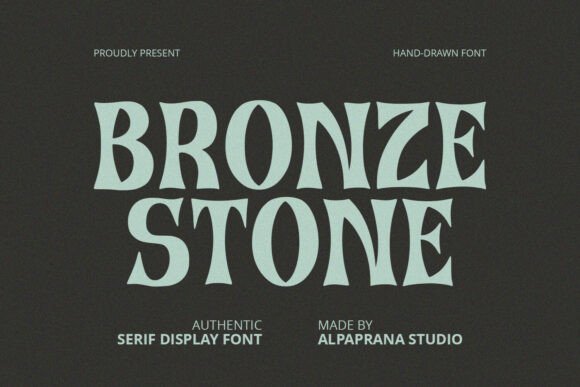
Unleash Your Creativity with Bronze Stone Font
Have you ever stared at a blank canvas, trying to conjure up the perfect font to bring your design to life? It’s a feeling we’ve all been there, right? The blank page staring back at us, daring us to take the leap and create something truly unique. For designers, finding the right font can be the difference between a mediocre design and a masterpiece.
Enter Bronze Stone Font, a cool and versatile display font that’s sure to take your creative projects to the next level. With its sleek, modern aesthetic, Bronze Stone Font is perfect for adding a touch of sophistication to your designs. Whether you’re working on a logo, brochure, or website, this font is sure to impress.
As a designer, you know how valuable it is to have a reliable font at your disposal. Bronze Stone Font is more than just a pretty face – it’s a powerful tool that can help you communicate your message with style and flair. So why settle for a boring, run-of-the-mill font when you can unleash your creativity with Bronze Stone Font?
Bronze Stone Font Key Features
- Font Family: Bronze Stone Font is a serif font family designed for use in print and digital media.
- Font Size: Bronze Stone Font comes in a range of sizes, from 12-point to 72-point, making it suitable for various applications, including body text, headings, and titles.
- Resolution: Designed for high-resolution output, Bronze Stone Font is ideal for use in print materials, such as books, magazines, and newspapers, as well as digital displays with high pixel densities.
- Unique Characteristics: Bronze Stone Font features a distinctive, antique-inspired design with a warm, earthy tone, evoking the look and feel of weathered bronze.
Designer Review: Bronze Stone Font
I’ve had the chance to work with the Bronze Stone Font, and I must say it’s a unique and stylish addition to any design project. ✨ Here are some of its strengths:
- Highly customizable: The font offers a wide range of styles and weights, making it perfect for creating visually appealing headers and titles.
- Great for luxury and vintage designs: The bronze-like color palette and ornate details evoke a sense of sophistication and elegance.
- Works well in print and digital media: The font is well-suited for both physical and digital applications, including business cards, logos, and websites.
However, like any font, Bronze Stone has its limitations: ⚠️
- Limited legibility: In smaller font sizes, the intricate details of the font can make it difficult to read.
- Not ideal for body text: While the font is perfect for headers and titles, it’s not the best choice for large blocks of text due to its ornate nature.
- May require additional formatting: Depending on the design project, you may need to add additional formatting or styling to ensure the font reads well.
Overall, Bronze Stone Font is a great choice for designers looking to add a touch of luxury and sophistication to their projects. With some careful planning and formatting, this font can be a real showstopper.
Use the Bronze Stone Font to add a touch of elegance and sophistication to your designs. Pair it with a neutral background to make it stand out. Experiment with different font sizes and styles to create visual interest.
The Bronze Stone Font is perfect for:
- Business cards and brochures
- Product packaging and labeling
- Editorials and blog posts
Fontin is a serif font that resembles a classic stone inscription. It’s ideal for use in historical or vintage-themed designs, such as book covers, posters, or signage.
Fontin is similar to Bronze Stone Font in its serif style, but it has a more elegant and refined feel. It’s also more versatile, with a wider range of weights and styles available.
What font sizes and styles are included in the Bronze Stone Font?
The Bronze Stone Font includes a range of font sizes and styles, including regular, bold, italic, and bold-italic. The font also includes a variety of ligatures and swashes to add a touch of elegance and sophistication to your designs.